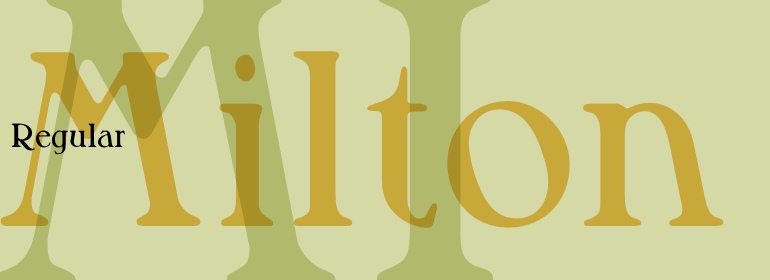
Milton Font
Milton Font is perfect for classic literature publishing, academic poetry presentations, traditional university branding, scholarly literary journals, intellectual cultural institutions, distinguished educational materials, refined book design, and sophisticated literary communications.
What makes Milton Font exciting is its literary grandeur that embodies the epic eloquence and intellectual magnificence of classical literature with poetic authenticity and scholarly sophistication. The font features majestic letterforms with epic proportions and literary character that evoke paradise regained, scholarly discourse, and the timeless beauty of classical poetry and intellectual achievement. Its distinctive literary styling and scholarly appeal communicate wisdom, eloquence, and intellectual authority, making every message feel composed with poetic mastery and touched by the magnificent beauty of literary tradition and scholarly excellence.
The Milton Font family includes regular weight with uppercase and lowercase letters, numerals, punctuation marks, and comprehensive literary symbols. Premium versions often feature multiple weights, italics, and scholarly alternates that provide complete typographic solutions for complex literary and academic applications.
This distinguished literary typeface brings instant credibility and scholarly authority to any literature-focused project. Milton Font Free Download delivers exceptional results for academic institutions and literary organizations seeking to communicate poetic excellence, intellectual depth, and classical literary tradition to educated audiences and literary enthusiasts.
The scholarly character of Milton Font makes it particularly valuable for university literature departments, classical publishing houses, and intellectual cultural institutions. Its excellent readability at extended lengths ensures literary content and scholarly communications remain comfortable to read while maintaining the distinctive epic aesthetic that appeals to educated audiences seeking authoritative literary sources and intellectual depth.
Literary publishers and academic communicators appreciate how Milton Font effortlessly conveys scholarly authenticity and poetic grandeur. The font's majestic proportions and literary details create prestigious educational materials that establish confidence with audiences who value classical literature, intellectual rigor, and the magnificent tradition of epic poetry and scholarly literary achievement.
The versatile eloquence of this typeface extends to cultural foundations, literary societies, and classical education where literary authenticity enhances scholarly credibility and intellectual appeal. Milton Font Free Download provides creative professionals with an essential tool for developing memorable, literature-driven designs that resonate with audiences who embrace classical poetry, intellectual tradition, and the epic magnificence of literary excellence in their scholarly and cultural experiences.